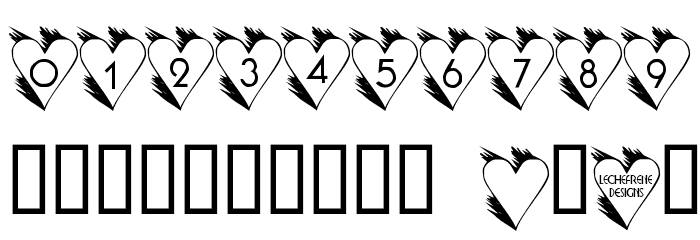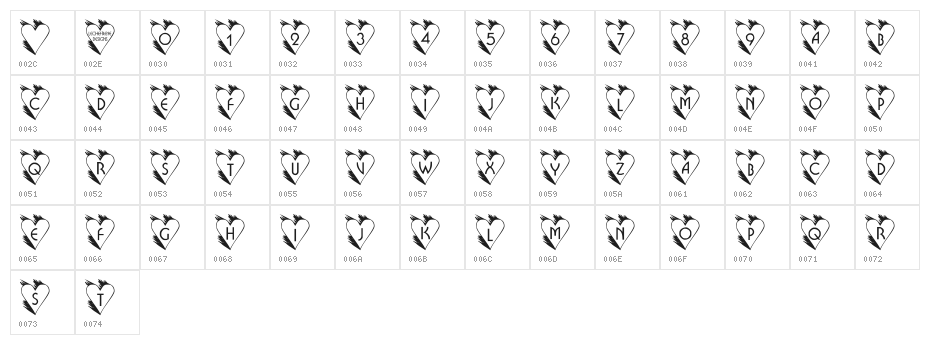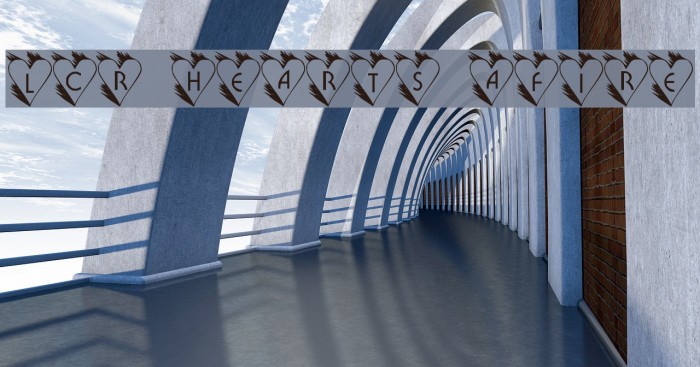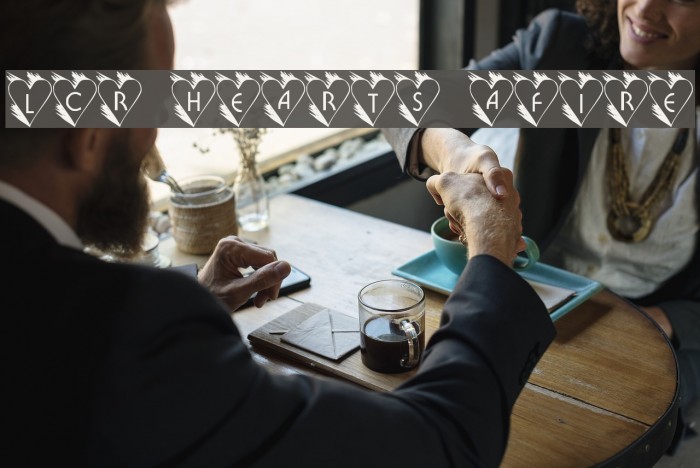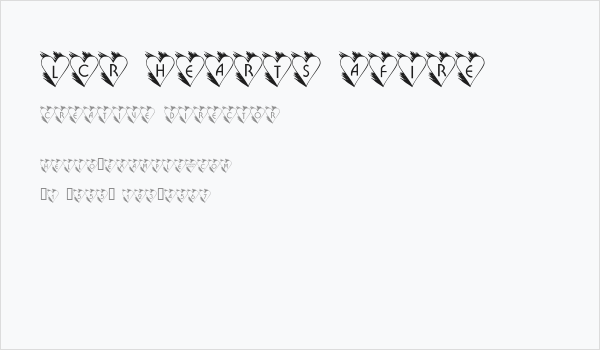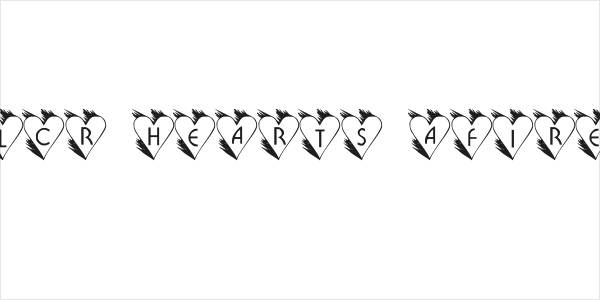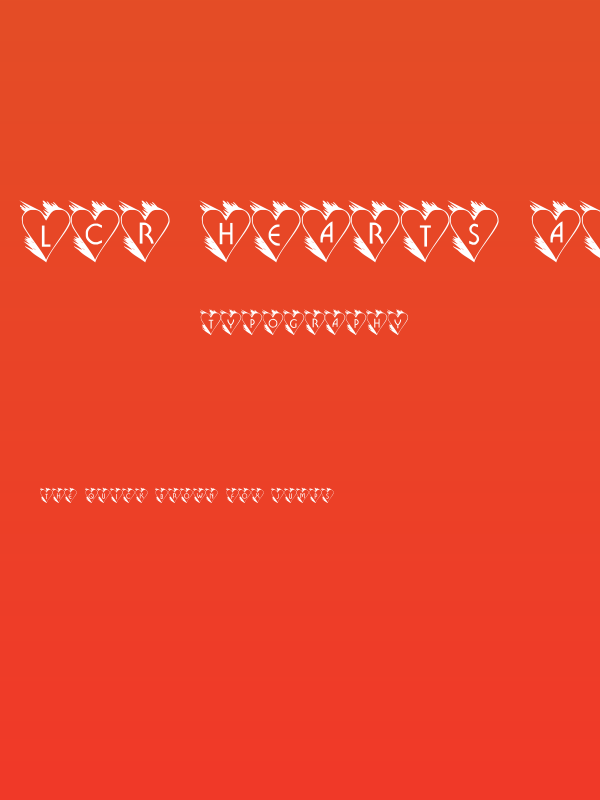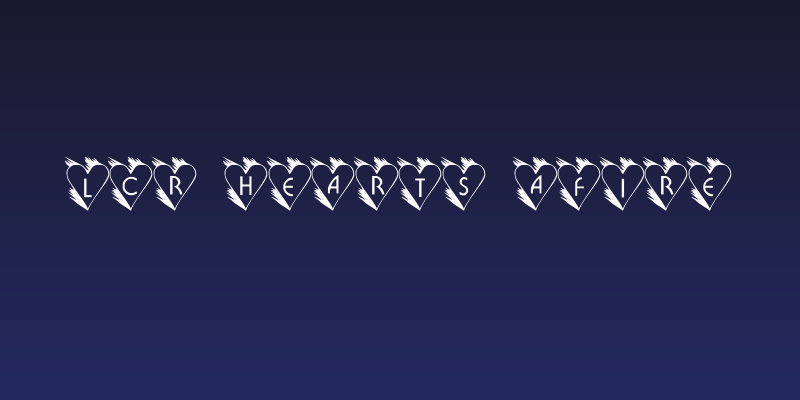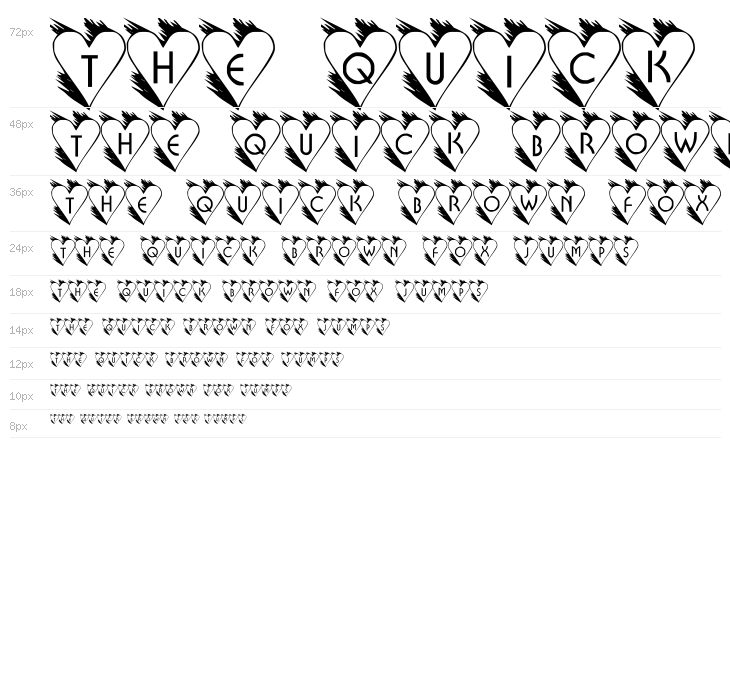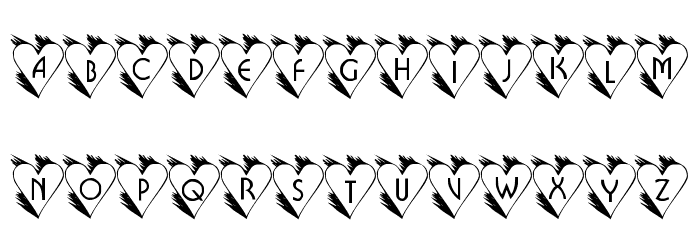
LCR Hearts Afire Font
LCR Hearts Afire Description
This decorative font features each character enclosed within a stylized heart shape, with a dynamic, brush-like stroke extending from the right side of each heart. The letters are uppercase and lowercase, with numerals and a selection of special characters, all maintaining the heart motif. The design is playful and romantic, making it ideal for projects that require a touch of whimsy and affection. The bold strokes and heart shapes create a strong visual impact, suitable for eye-catching designs.
| Proposed Projects | Ideal for Valentine's Day cards, wedding invitations, love-themed posters, and playful branding. |